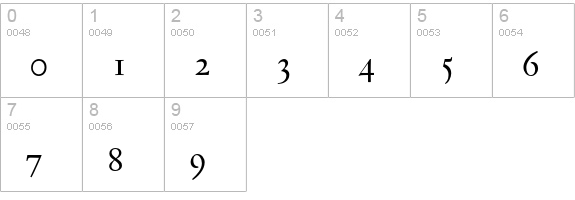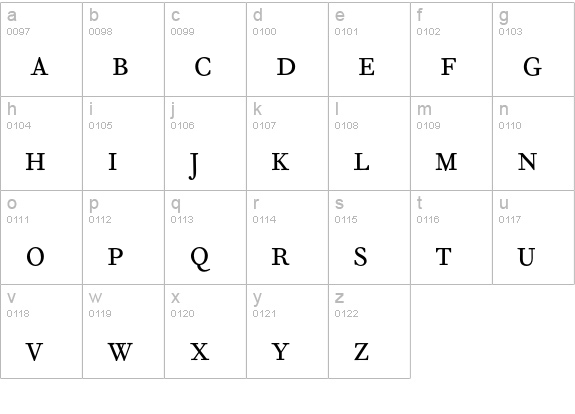
Fournier MT Regular Small Caps & Old Style Figures is the standard, neutral variant in the Fournier typeface family \xE2\x80\x94 well suited to general body text, paragraphs, and standard typographic work.
Fournier MT Regular Small Caps & Old Style Figures font is a timeless and elegant typeface that exudes sophistication and charm. With its classic small caps and old style figures, this font is perfect for adding a touch of refinement to any design project. The clean lines and balanced proportions give Fournier MT a sense of grace and versatility, making it suitable for a wide range of applications. What makes Fournier MT even more appealing is that it is freely available for download at FontsMarket.com. This means that you can easily access this beautiful font and use it in your projects without any cost. Whether you're working on a branding project, editorial design, or any other creative endeavor, Fournier MT Regular Small Caps & Old Style Figures font is sure to elevate your work and make a lasting impression. Download it now and add a touch of elegance to your designs!